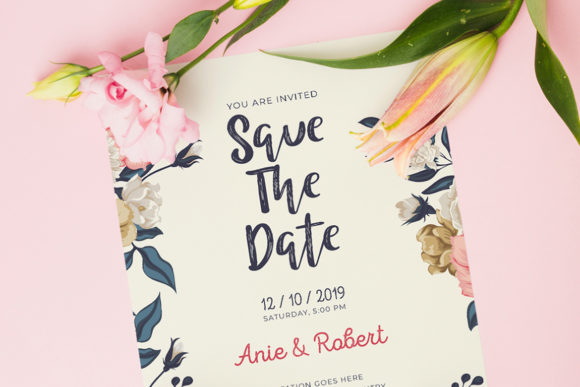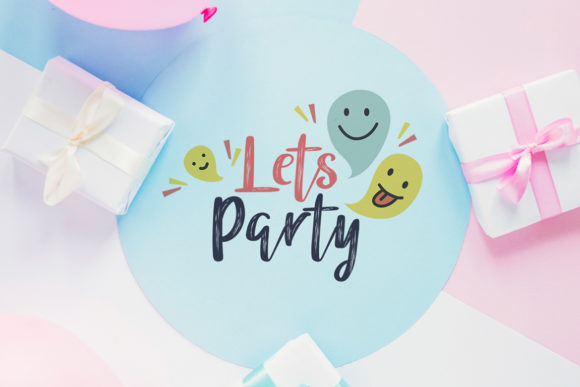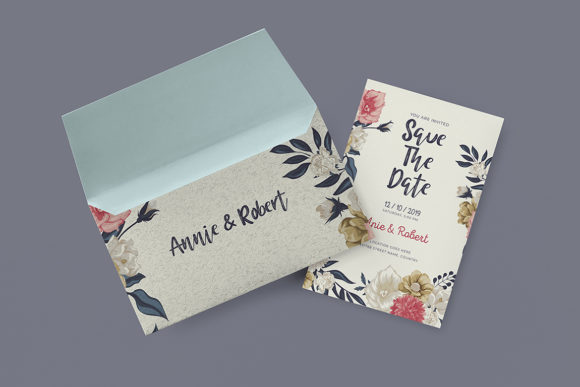
Unleash the Charm of Brittney Script Font
Have you ever stared at a blank canvas, waiting for the perfect font to bring your design to life? That’s exactly what happened to me the last time I was working on a project. I wanted something that would add a touch of elegance and whimsy, but nothing seemed quite right. That’s when I stumbled upon the Brittney Script Font – and everything changed.
This beautiful handwritten font boasts an effortlessly light feel that instantly elevates any design project. With its unique charm and modern aesthetic, Brittney Script Font is the perfect addition to any creative endeavor. Whether you’re designing a wedding invitation, a logo, or a social media graphic, this font is sure to make your design stand out from the crowd.
As a designer, you know how hard it can be to find the perfect font that captures the essence of your vision. That’s why Brittney Script Font is such a valuable asset – it’s a game-changer that will take your designs to the next level.
- Unique Characteristics: Elegant, cursive script with a flowing and whimsical feel, ideal for creative and artistic projects
- Font Style: Available in regular and bold weights, with optional ligatures for added flair
Brittney Script Font Review
Overall, I think the Brittney Script font is a beautiful addition to any design project. It’s perfect for those looking for a elegant, handwritten look. ✨ The font’s smooth curves and subtle flair make it ideal for titles, headings, and quotes.
Here are some specific strengths of the font:
- ✨ Elegant and sophisticated design
- ✨ Perfect for titles, headings, and quotes
- ✨ Smooth curves and subtle flair
- ✨ Suitable for a wide range of design projects
- ⚠️ May not be the best choice for body text due to its elegant, handwritten style
- ⚠️ Can be difficult to read in certain font sizes or styles
- ⚠️ May not be suitable for designs that require a more modern or edgy look
Overall, I think the Brittney Script font is a great addition to any designer’s toolkit. While it may have some limitations, its elegant design and versatility make it a valuable resource for a wide range of design projects.
Brittney Script Font is commonly used for:
- Baby shower invitations and decorations.
- Food and drink labels and packaging.
- Handmade and crafty projects
Alternatives to Brittney Script Font
Great Vibes is a modern calligraphy font designed by hand. It is perfect for use in invitations, posters, and social media graphics where a touch of elegance is required. Great Vibes is more refined and polished compared to Brittney Script Font, making it ideal for formal events and high-end branding.
Carolyna Pro is a stylish, elegant script font with a vintage feel. It is suitable for use in packaging, branding, and advertising where a unique, sophisticated look is desired. Carolyna Pro is more ornate and detailed compared to Brittney Script Font, making it ideal for luxury brands and high-end products.
Alex Brush is a beautiful, handwritten script font with a touch of whimsy. It is perfect for use in social media graphics, blog posts, and marketing materials where a personal, approachable tone is required. Alex Brush is more fluid and expressive compared to Brittney Script Font, making it ideal for creative and artistic brands.
Ostrich Sans is a modern, sans-serif script font with a touch of sophistication. It is suitable for use in corporate branding, reports, and presentations where a clean, professional look is required. Ostrich Sans is more minimalist and clean compared to Brittney Script Font, making it ideal for tech and finance brands.